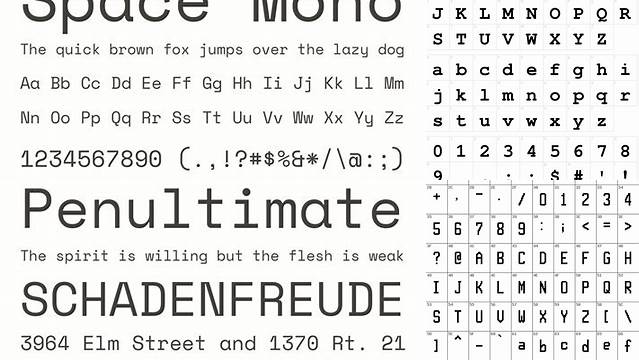
Hey guys! Ever found yourself needing a slick, clean, and readable font for your coding projects, design work, or even just sprucing up your documents? You've probably stumbled upon the wonderful world of mono fonts. These fonts, where each character occupies the same horizontal space, are super popular for their clarity and retro vibe. Today, we're diving deep into the realm of mono fonts, focusing on how to download them in the ever-convenient ZIP file format and, of course, in the widely supported TTF (TrueType Font) format. Let's get started and explore the best ways to get your hands on some awesome mono fonts!
Mono Fonts: An Overview
Before we jump into the downloading part, let's quickly recap what makes mono fonts so special. Unlike proportional fonts where letters like 'i' and 'm' take up different widths, mono fonts ensure every character has the same width. This uniformity makes them ideal for coding environments, terminal emulators, and even creative designs that aim for a consistent, typewriter-like appearance. So, whether you're a developer debugging code or a designer crafting a retro-themed poster, mono fonts are your friend. Understanding their use cases helps appreciate the variety available and why having a good collection in TTF format is crucial for your font library.
What are Mono Fonts?
Mono fonts, also known as monospace fonts, are characterized by their fixed-width nature. This means that each character, including letters, numbers, and symbols, occupies the exact same amount of horizontal space. This characteristic is what sets them apart from proportional fonts, where character widths vary. The consistent spacing provided by mono fonts offers several advantages, particularly in technical and design contexts. When you're dealing with code, a well-chosen mono font enhances readability, making it easier to distinguish between similar characters like 'l' (lowercase L), 'I' (uppercase i), and '1' (one). This reduces the risk of errors and improves the overall coding experience. For designers, mono fonts bring a unique retro aesthetic, reminiscent of typewriters and early computer displays, adding a touch of nostalgia and technical sophistication to projects. The clarity and uniformity of mono fonts also make them suitable for creating tables and charts where precise alignment is essential.
Conclusion: The Versatile World of Mono Fonts
So, there you have it, guys! We've explored the wonderful world of mono fonts, from their unique characteristics and benefits to how to download and install them. Whether you're a coder looking for the perfect font for your IDE or a designer wanting to add a retro touch to your project, mono fonts offer a versatile solution. With the ease of ZIP file downloads and the wide compatibility of TTF format, getting your hands on some great mono fonts has never been easier. Remember to download from reputable sources, understand the licensing terms, and most importantly, have fun experimenting with these awesome fonts! Happy designing and coding, and may your mono fonts always be clear and crisp!